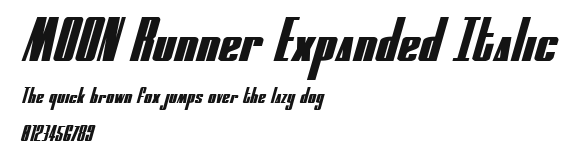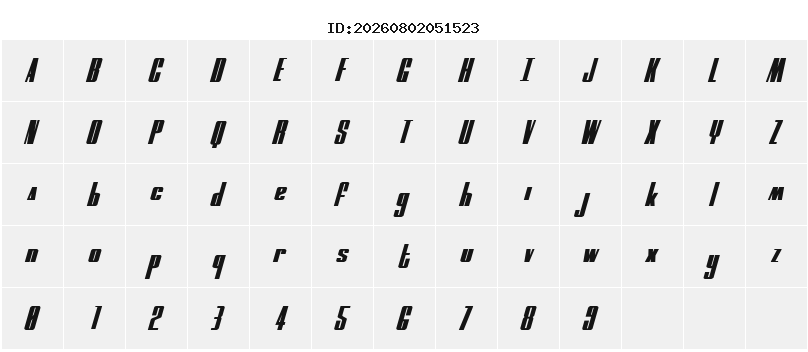
About MOON Runner Expanded Italic.ttf
MOON Runner Expanded Italic.ttf is a modern, elegant sans-serif font designed for ultimate readability and visual harmony. Perfect for branding, headlines, web design, and print materials.